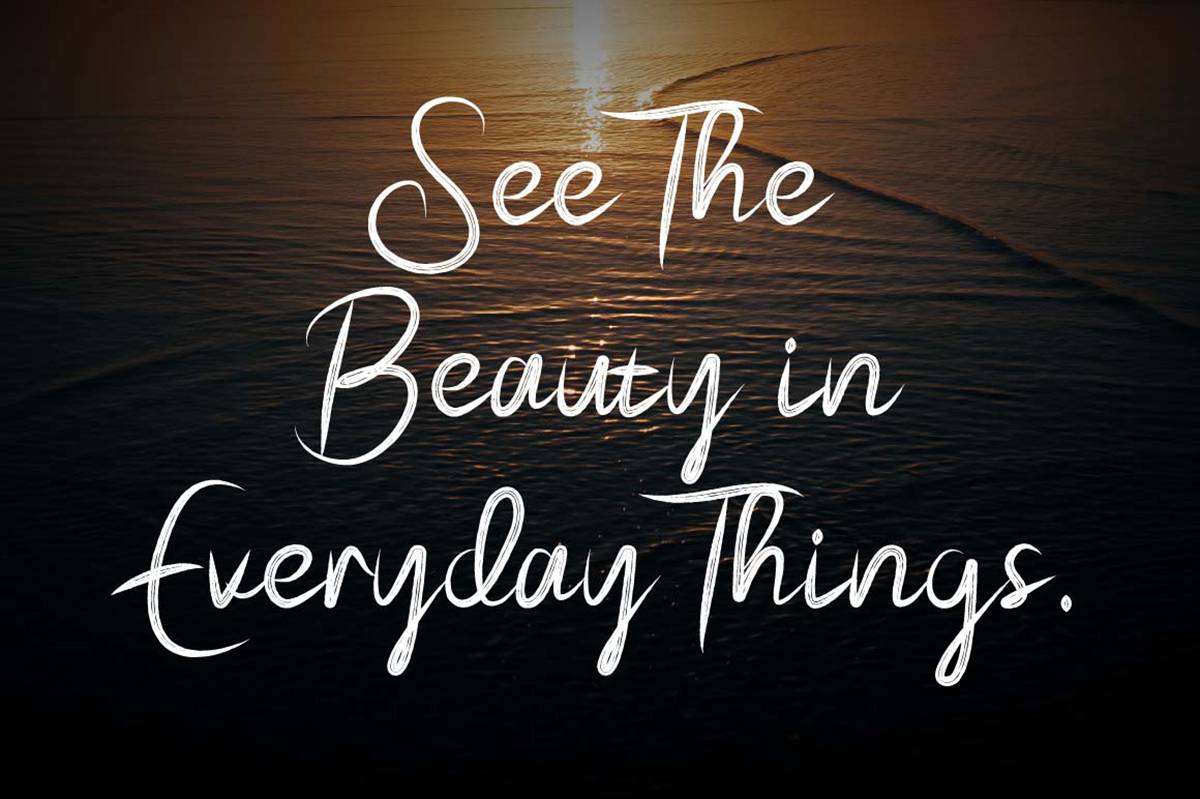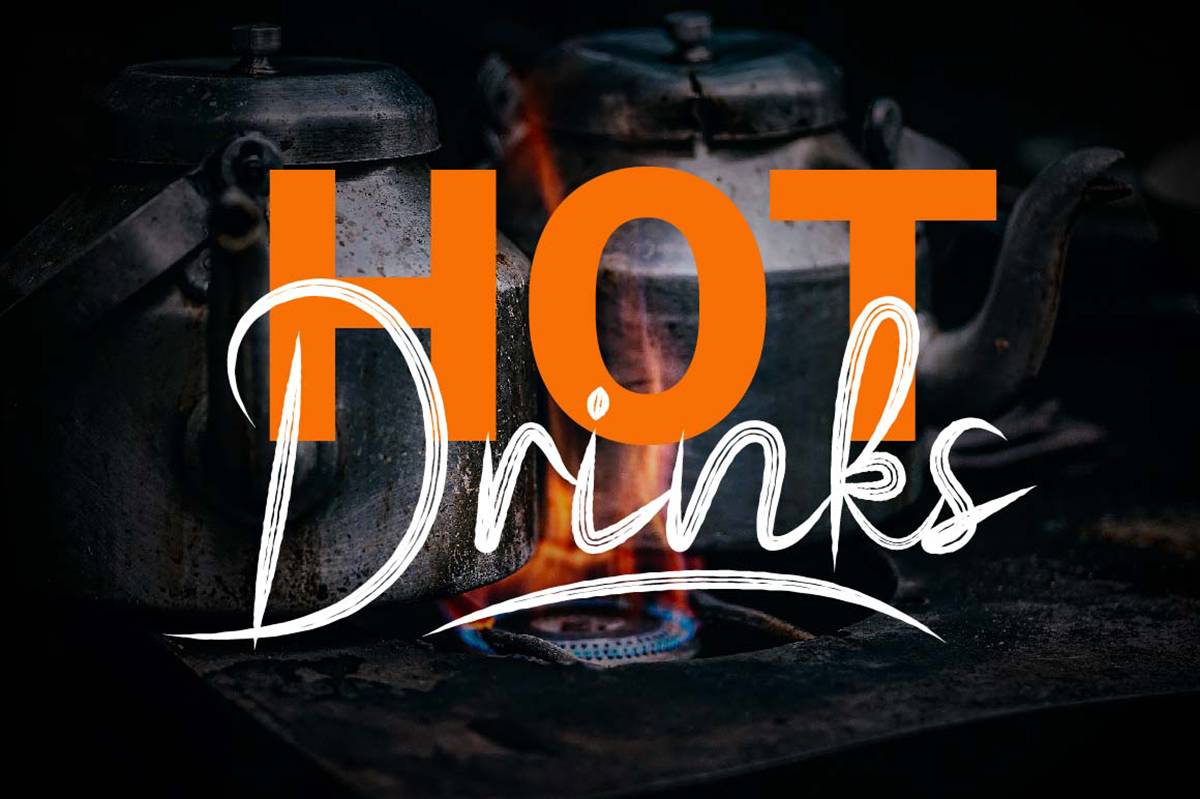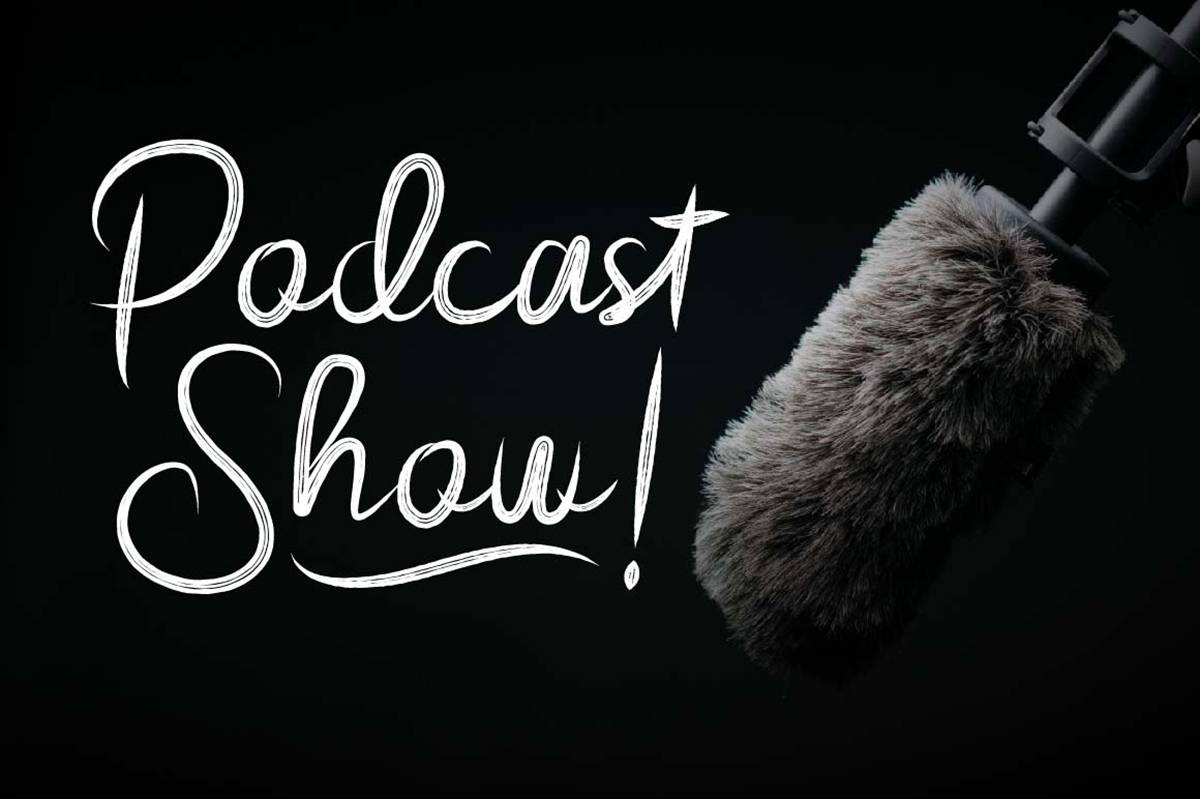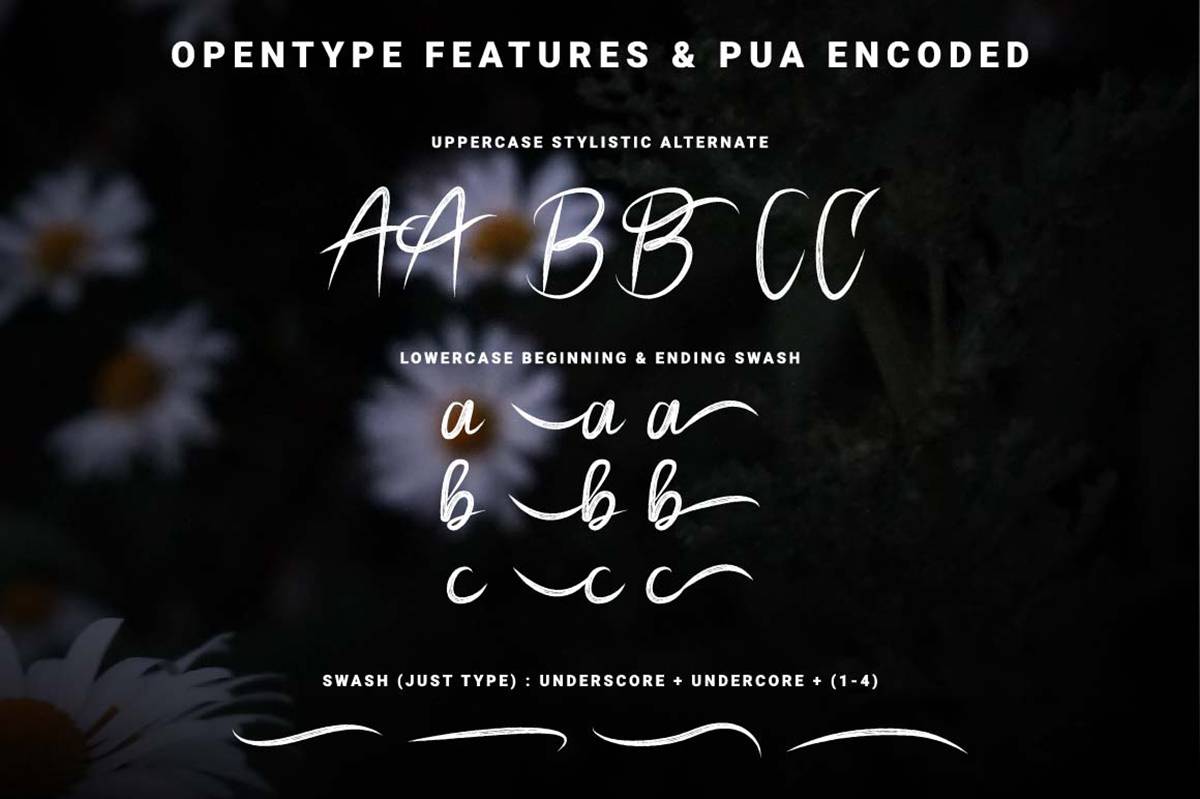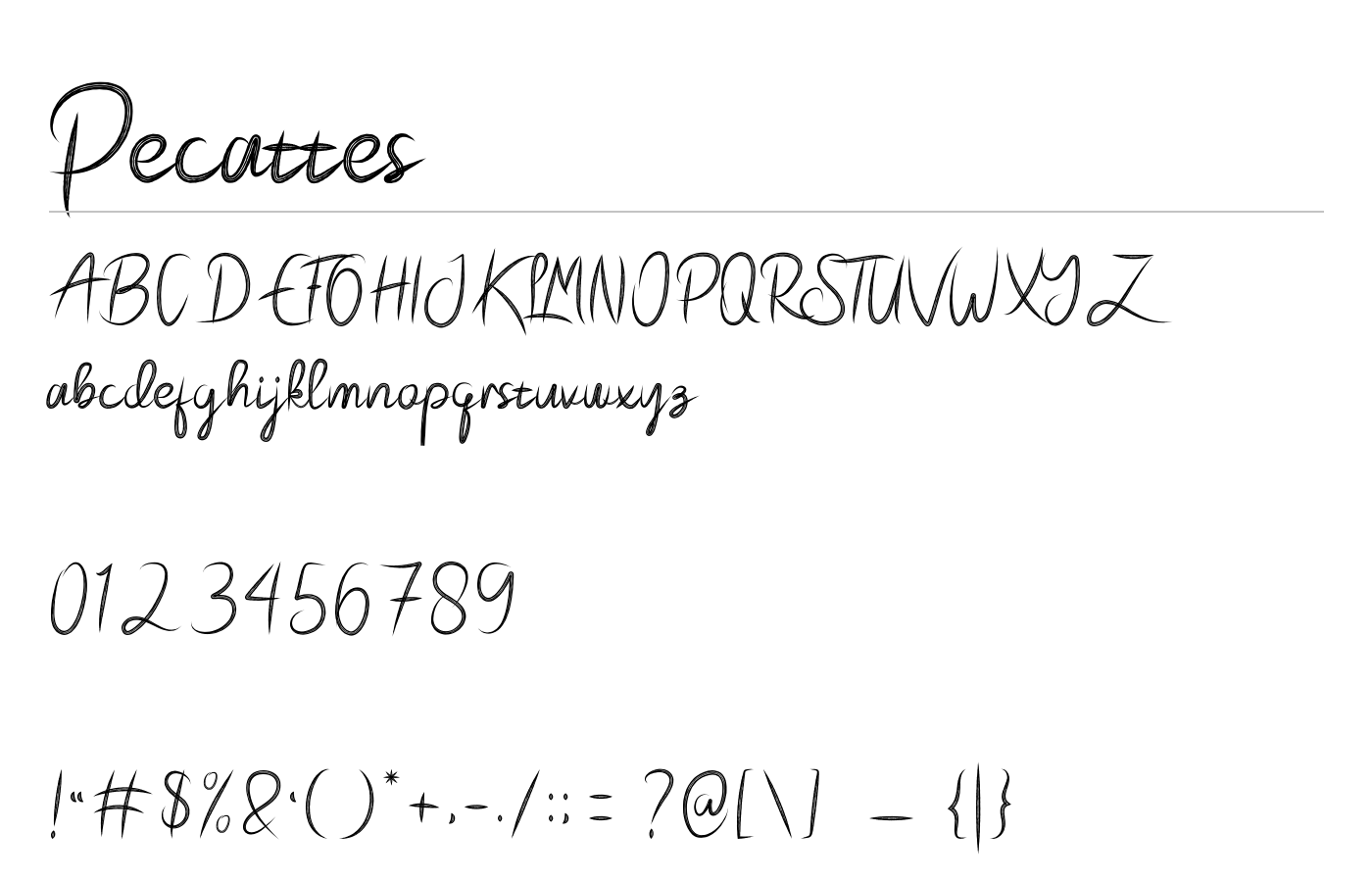
Pecattes is a slender, handwritten script font that combines elegance with a lively, artistic flair. Its tall, narrow letterforms and quick, sketch-like strokes give it a dynamic, personal touch, making it ideal for creative branding, elegant invitations, and modern editorial designs that seek a unique, expressive voice.
Pecattes Font
About Pecattes Font
| Font family | Pecattes Font |
| Designer | Prio Nurokhim Aji |